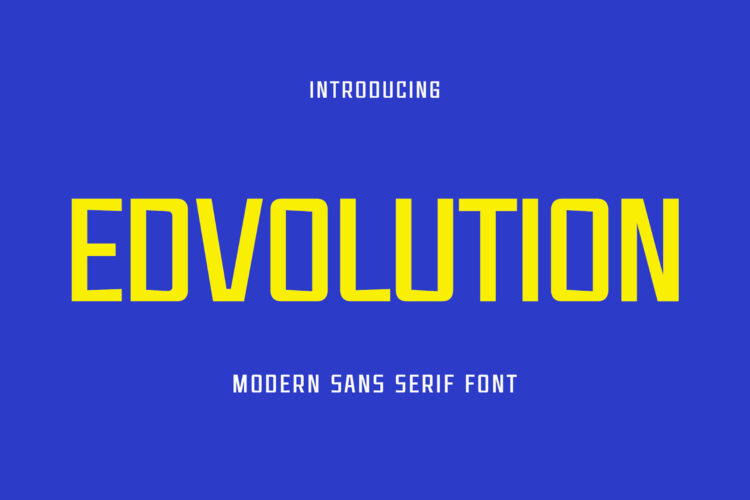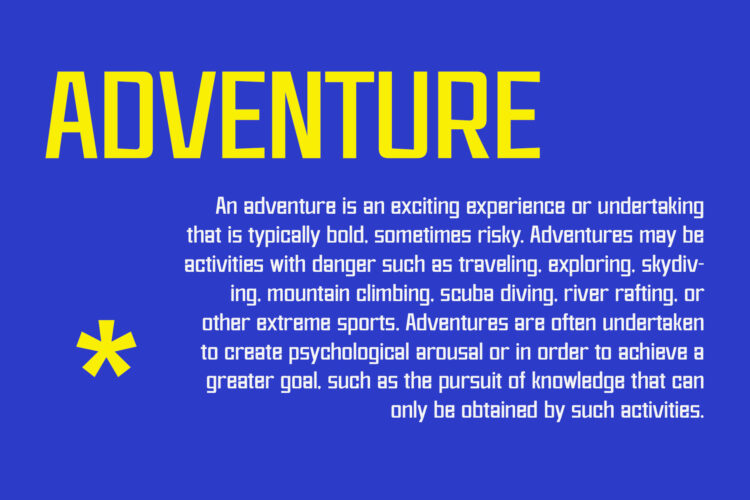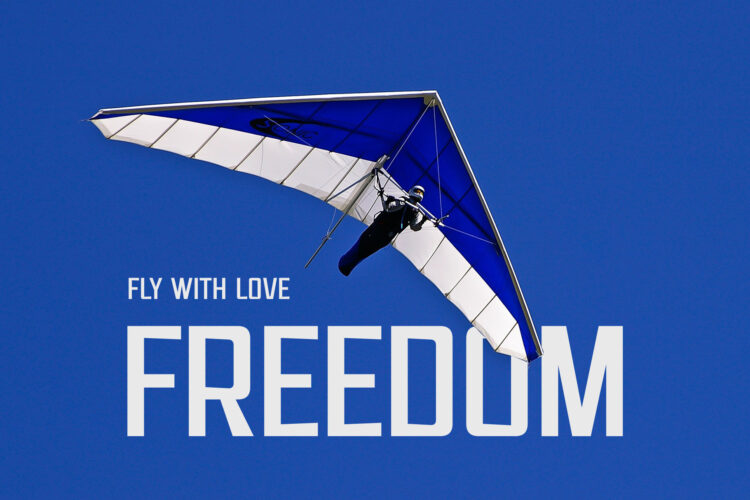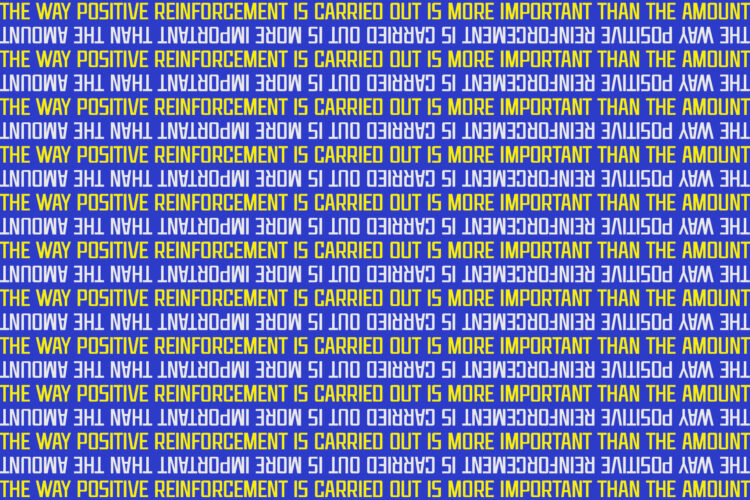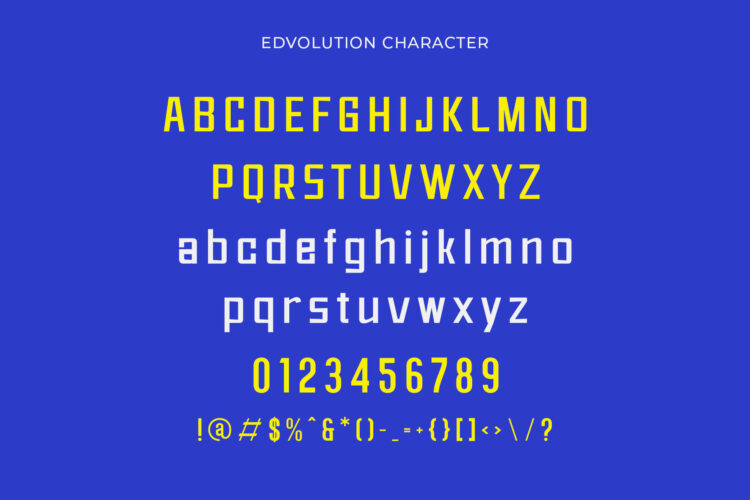
Introducing our new Edvolution, modern sans serif font with elegant style this is perfect for branding, logos, invitation, magazines, product packaging and more.
Edvolution – Modern Sans Serif